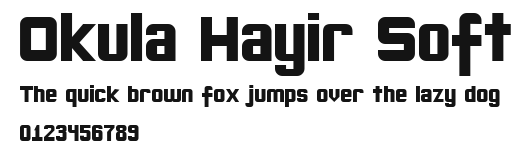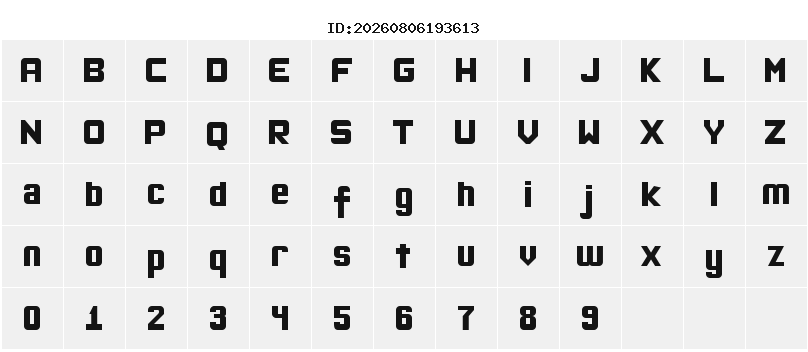
Okula Hayir Soft Preview
• Font Name: Okula Hayir Soft
• Designer: SerdarA
About Okula Hayir Soft.ttf
Okula Hayir Soft.ttf is a modern, elegant sans-serif font designed for ultimate readability and visual harmony. Perfect for branding, headlines, web design, and print materials.